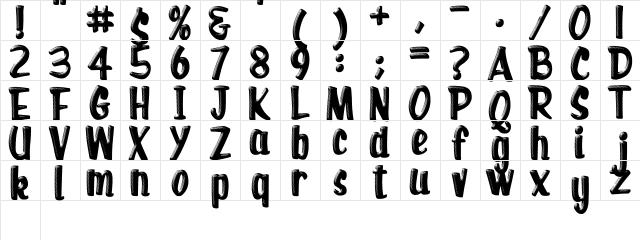
Retro Shine Regular
Design Context for Retro Shine Typeface
Retro Shine wears its vintage influences proudly, with letterforms that recall mid-century signage, classic packaging, and nostalgia-driven design.
Font Pairing: Combine Retro Shine with a simple slab or neutral sans — period-accurate companions reinforce the vintage feel without competing for attention.
Pro Tip: Use Retro Shine for headlines and pull quotes rather than body copy — its personality is best appreciated in short, focused bursts.